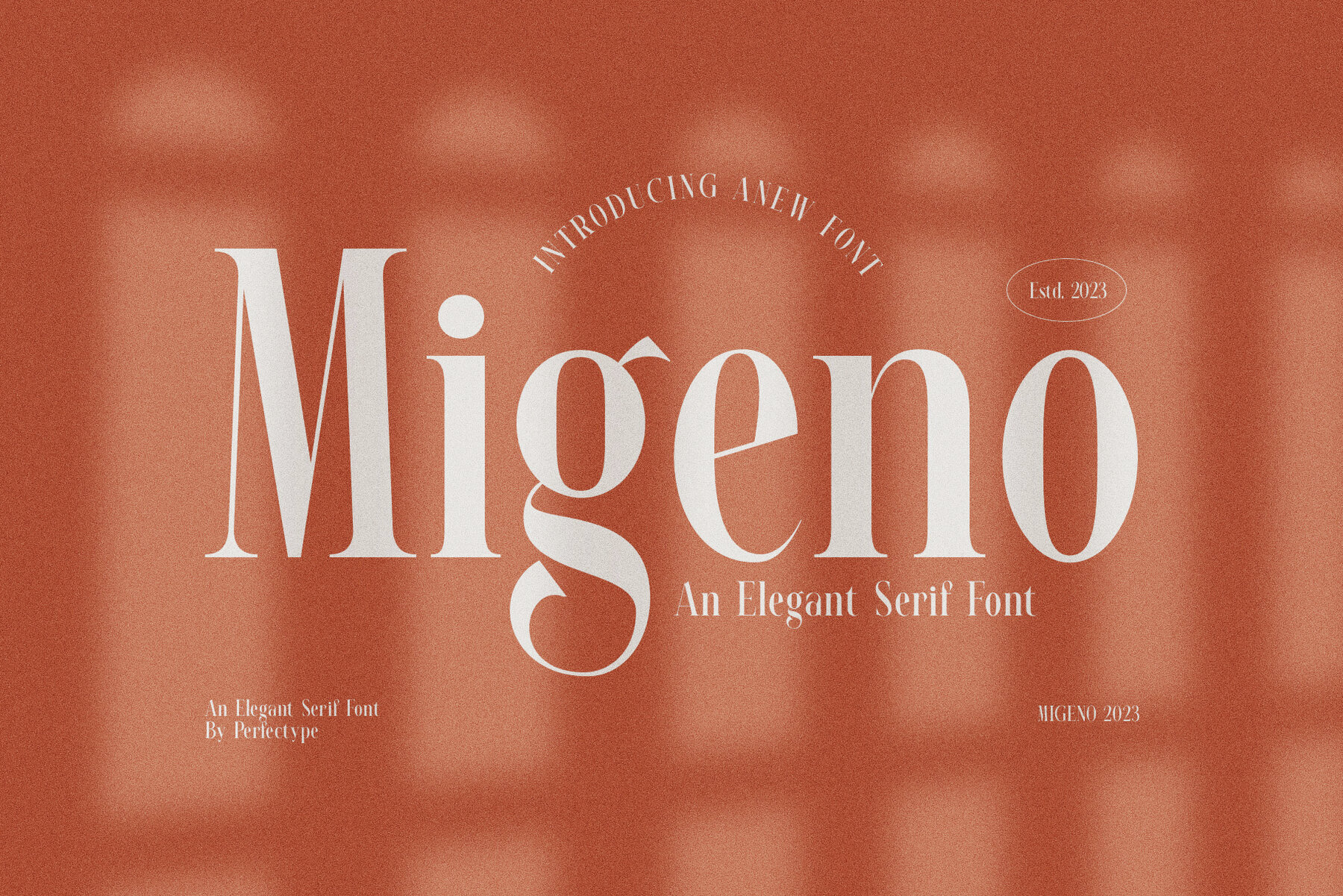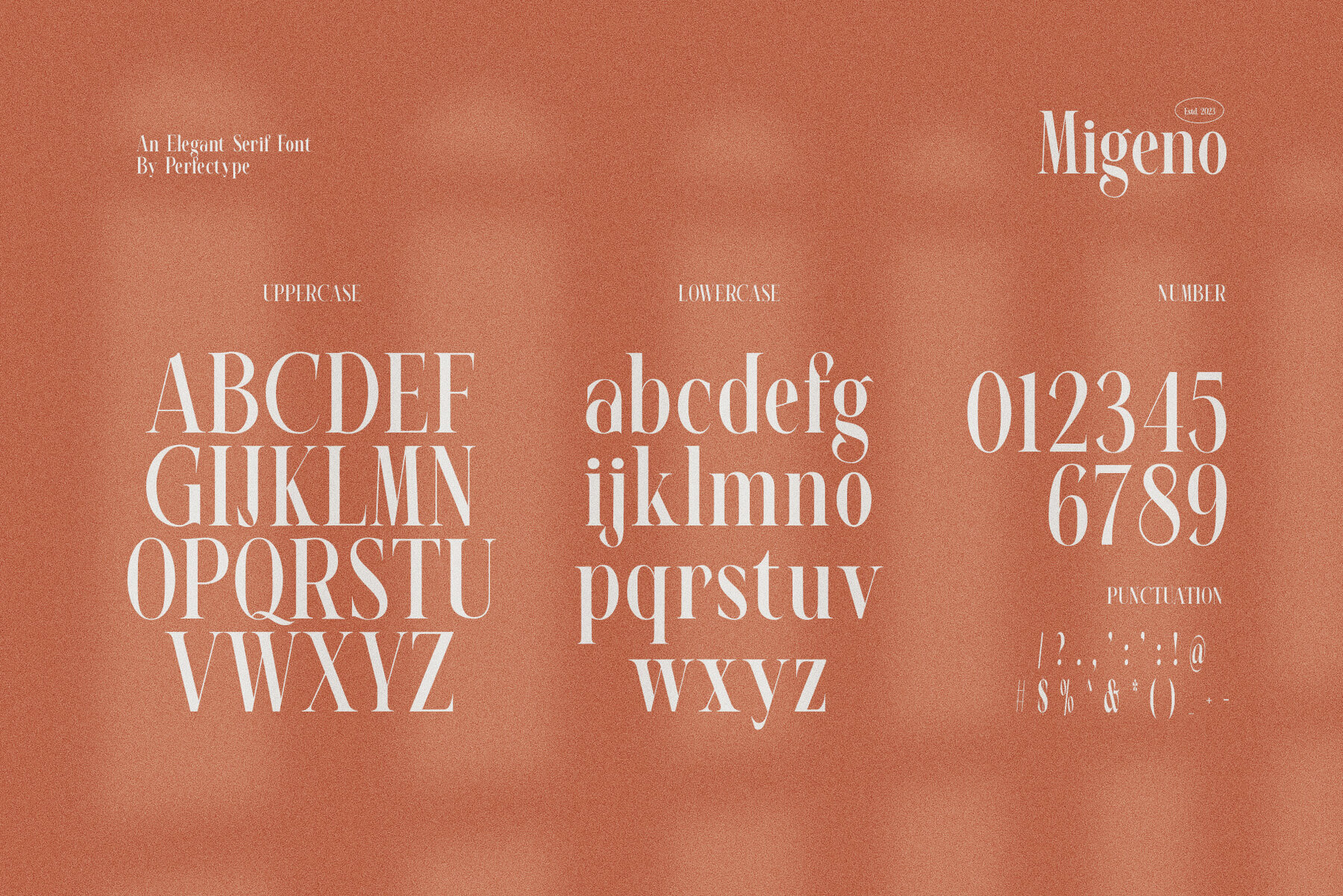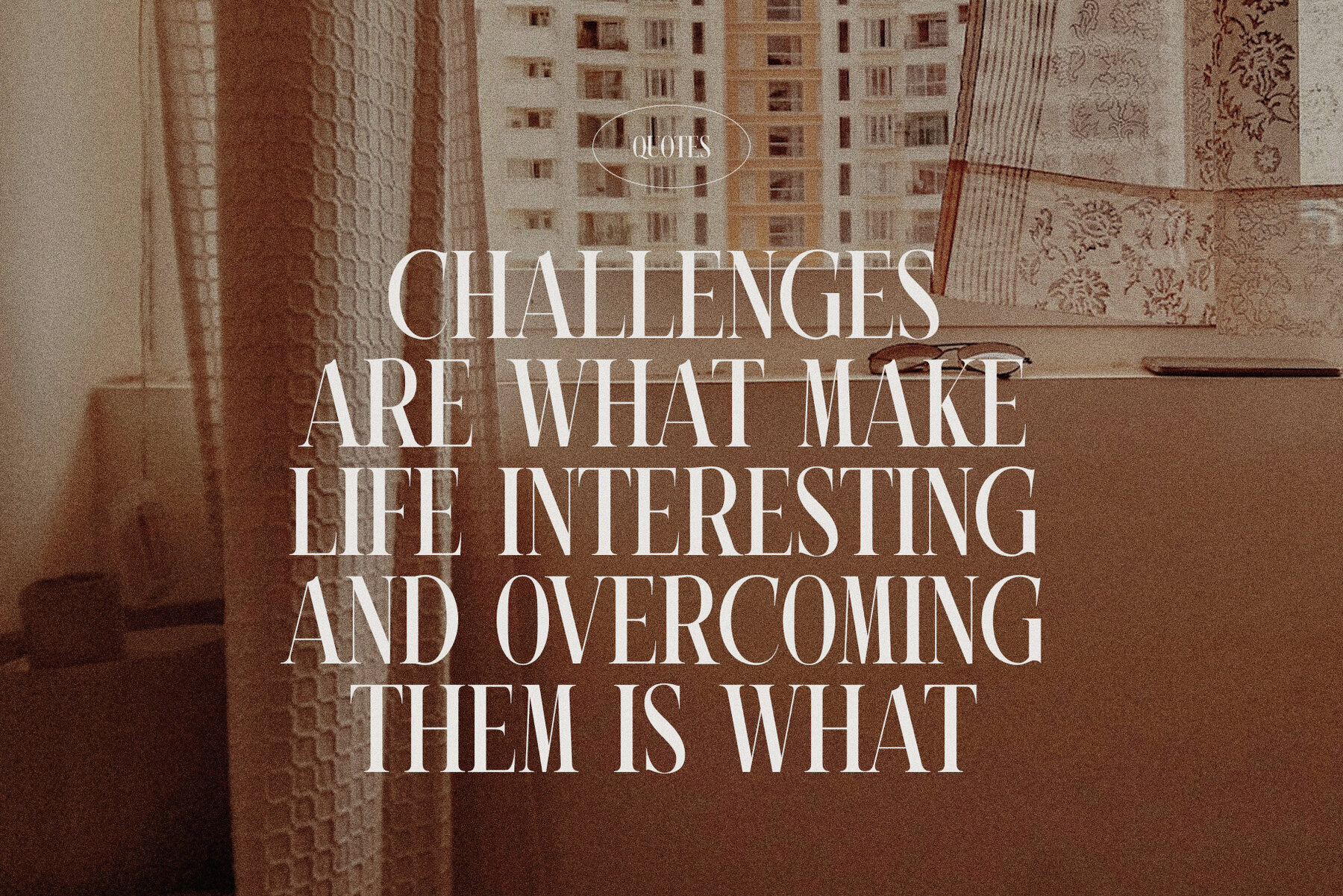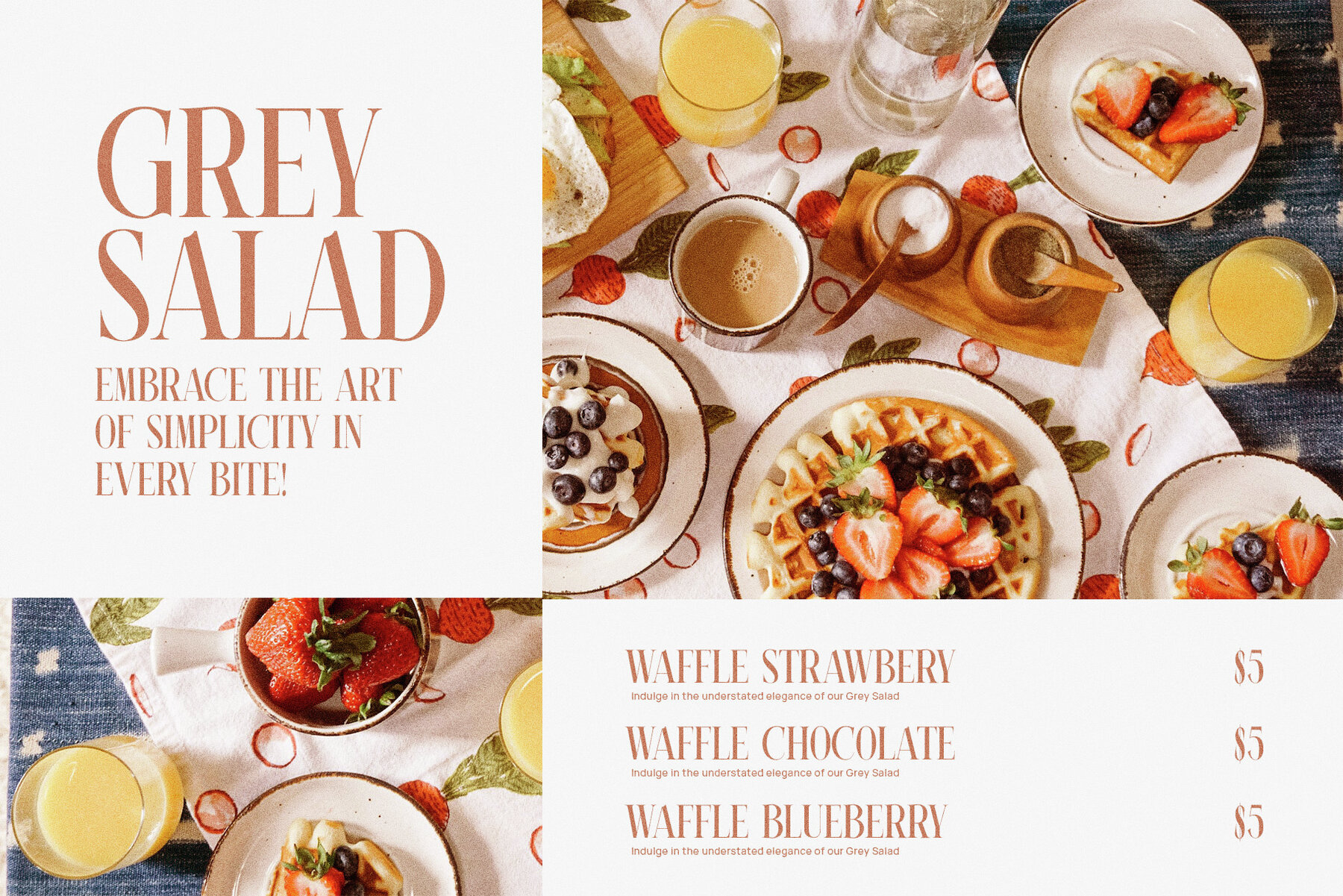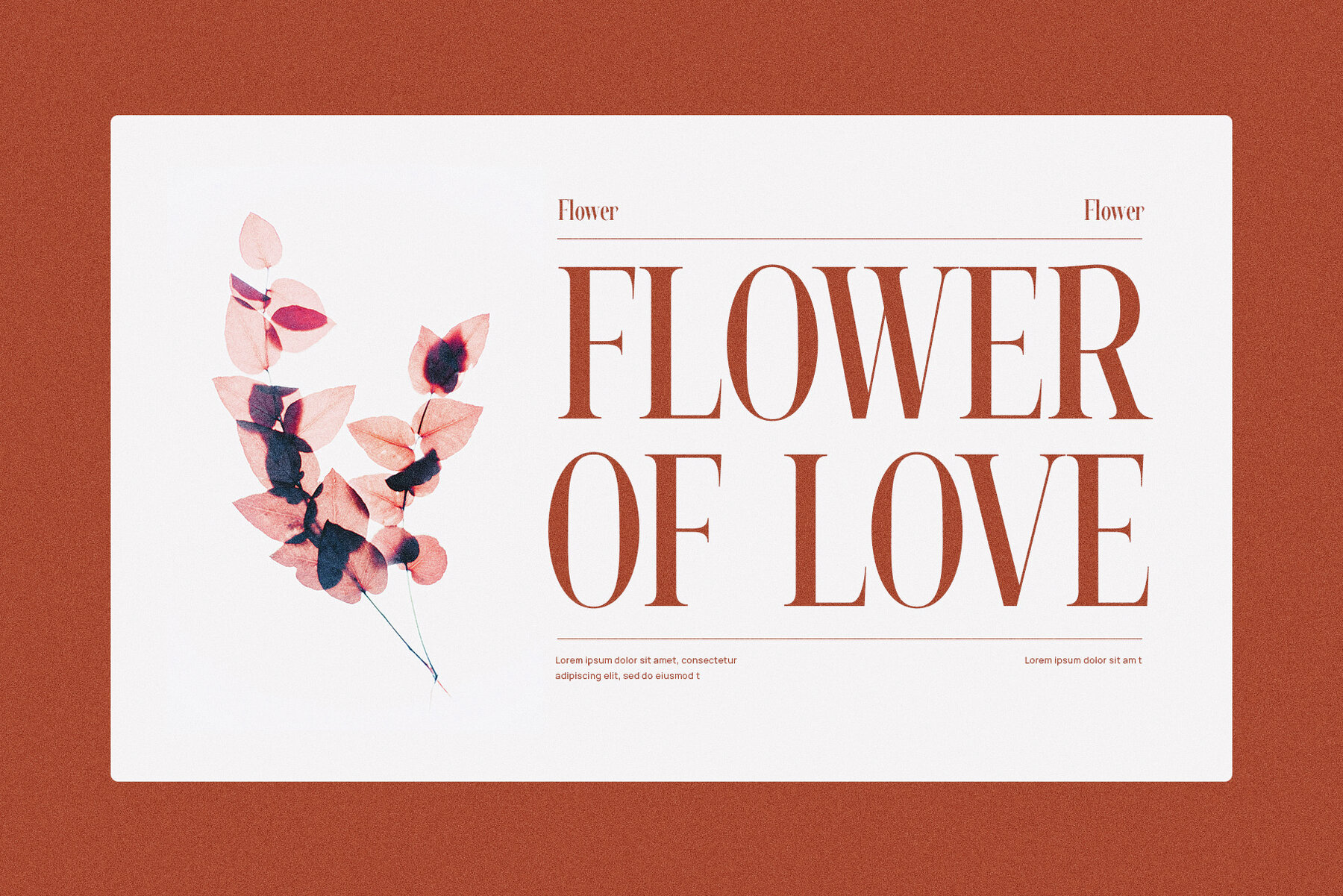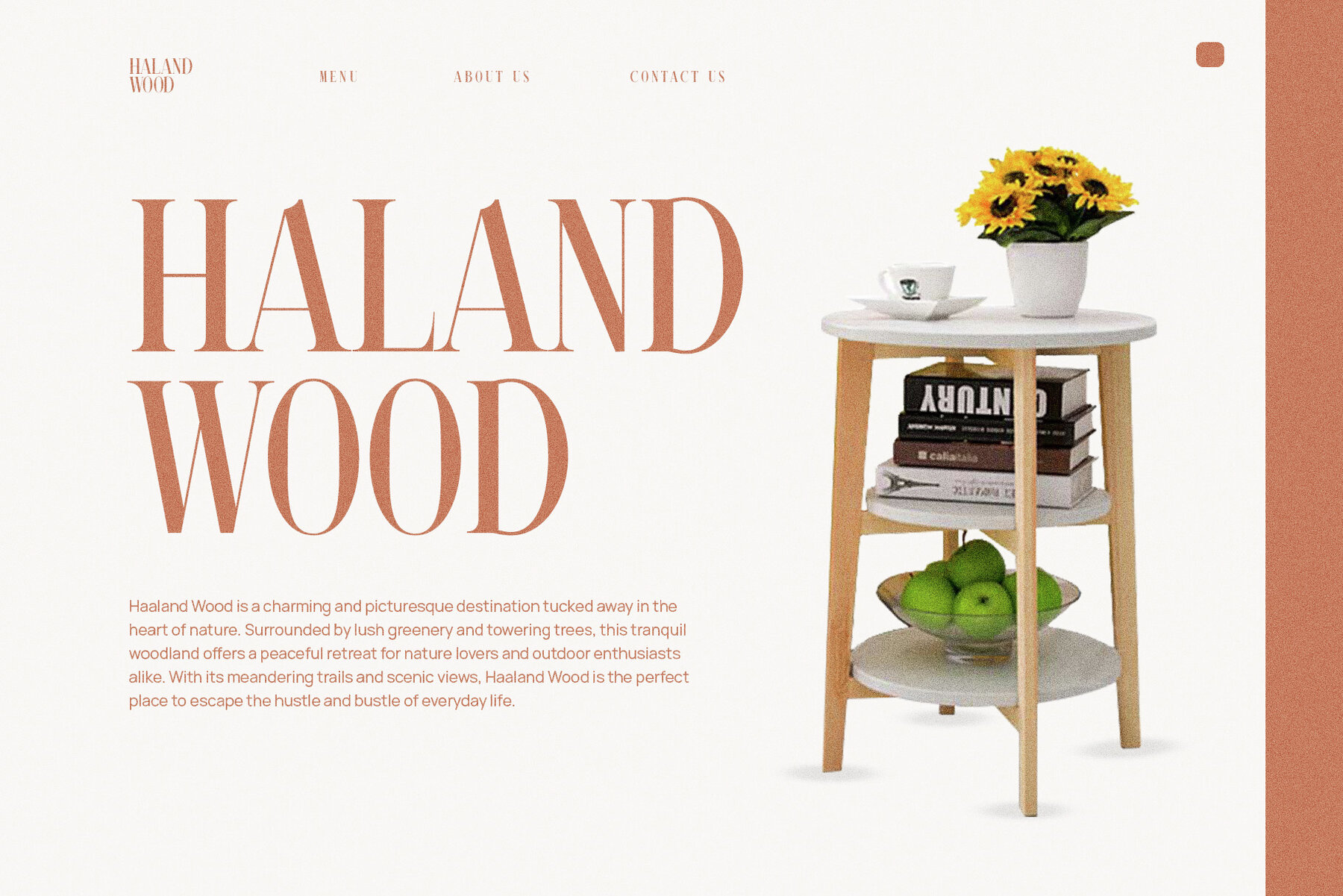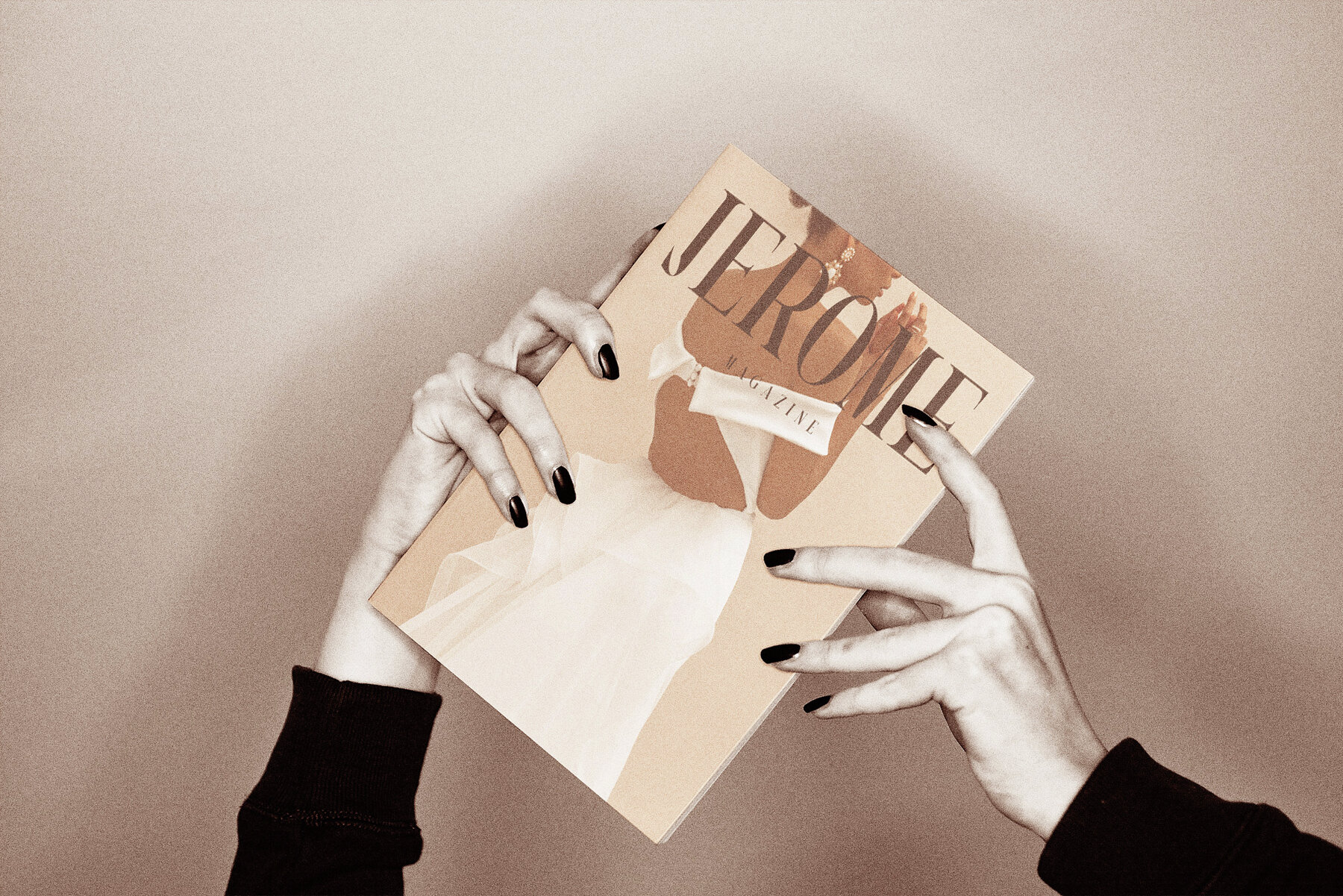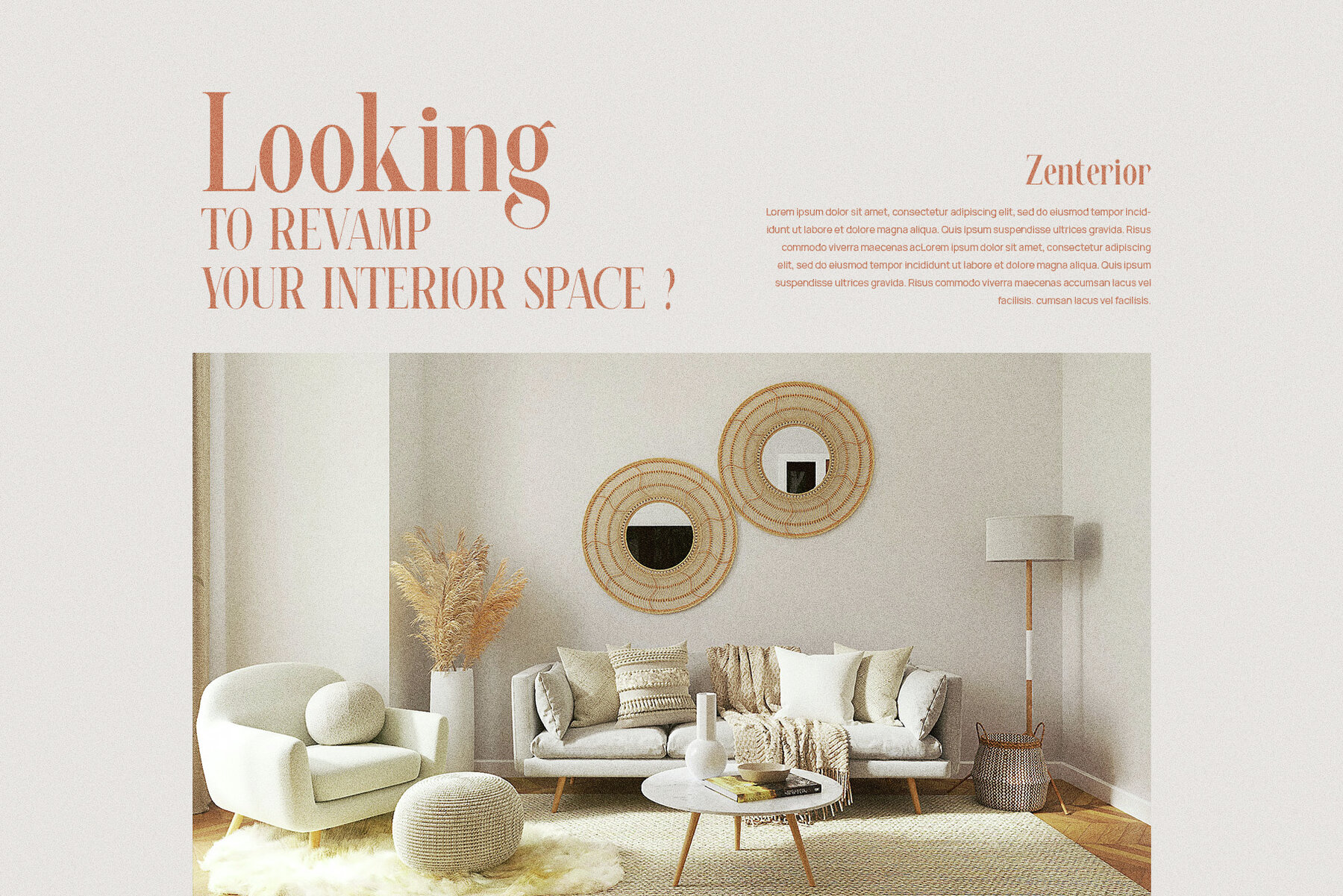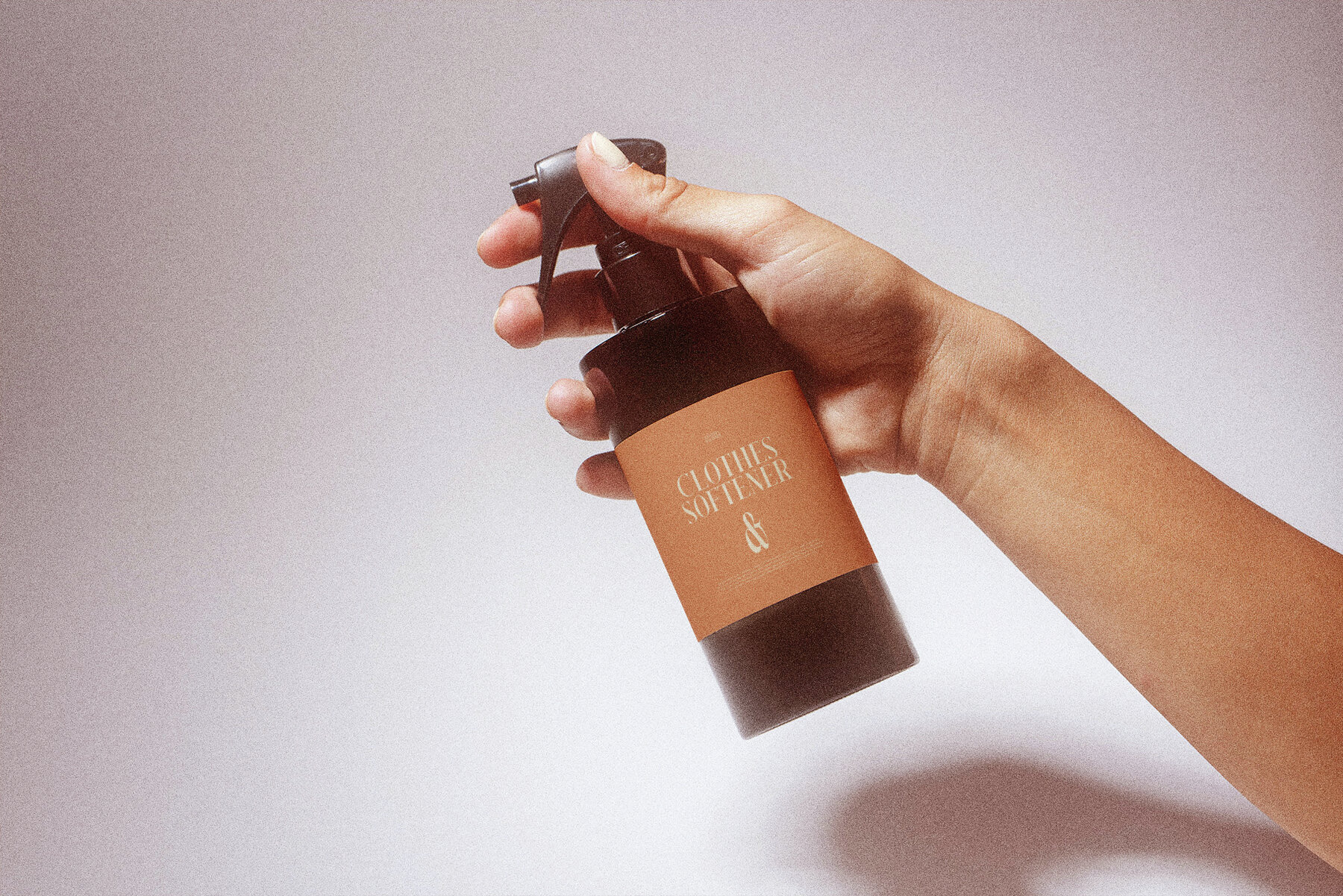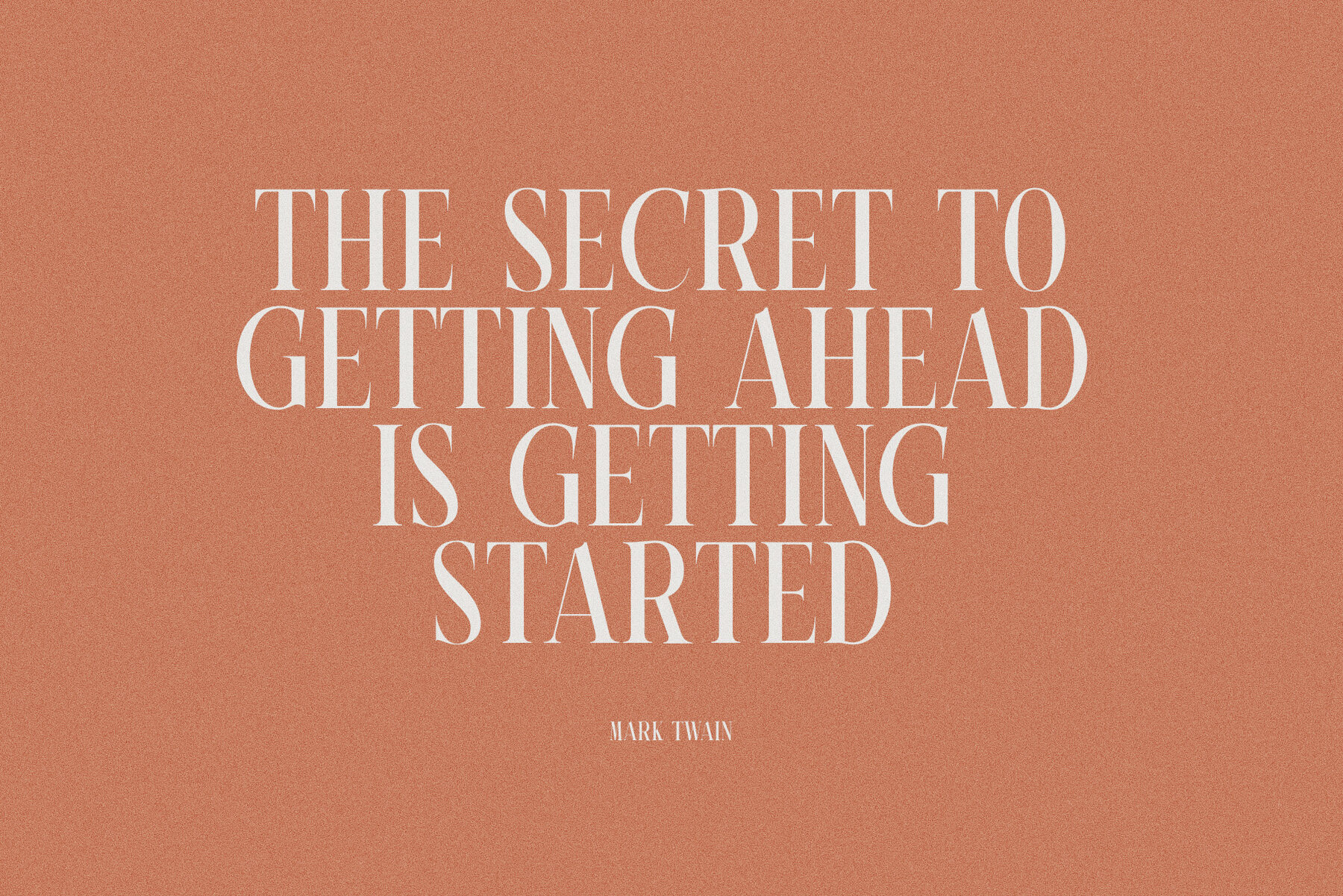
Migeno Font
Migeno Regular
The Migeno font by Graphicxell combines elegance and modernity, making it a perfect choice for branding and logo designs. This serif typeface offers a classy style with high readability, ideal for various projects such as wedding designs, social media posts, advertisements, and more. For optimal use, it is recommended to utilize Adobe Illustrator or Adobe Photoshop. Should you have any queries, feel free to reach out for assistance.Migeno: Elegant Serif Typeface for Diverse Branding Needs